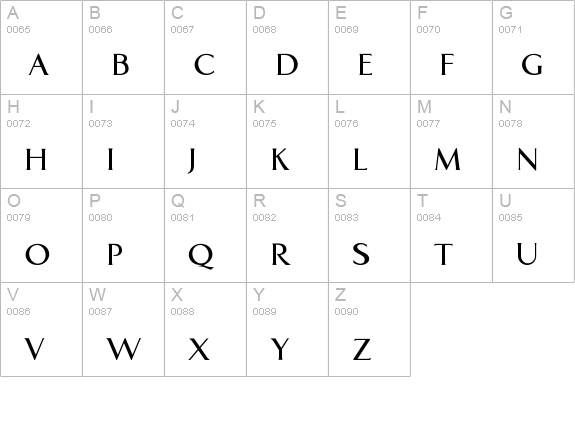
Aperto SemiBold is a sub-bold, structured variant in the Aperto typeface family \xE2\x80\x94 well suited to sub-headlines and emphasised passages.
Aperto SemiBold font is a modern and versatile typeface that strikes the perfect balance between boldness and elegance. Its clean lines and distinct character make it ideal for a wide range of design projects, from branding to editorial design. The semi-bold weight adds a touch of sophistication while maintaining readability in both print and digital formats. One of the best features of Aperto SemiBold font is that it is available for free download at FontsMarket.com. This means you can easily access this high-quality typeface without any cost, making it a valuable addition to your font library. Whether you're designing a website, creating a poster, or working on a logo, Aperto SemiBold font is sure to elevate your design with its modern and stylish aesthetic.